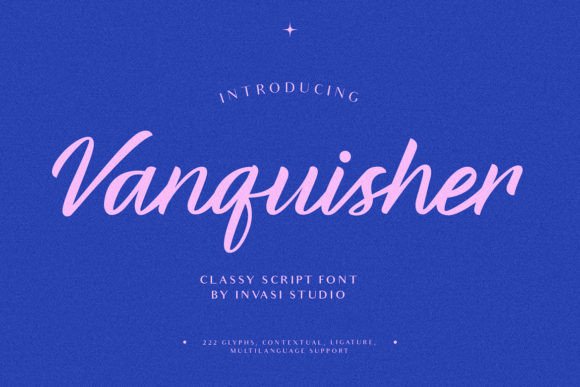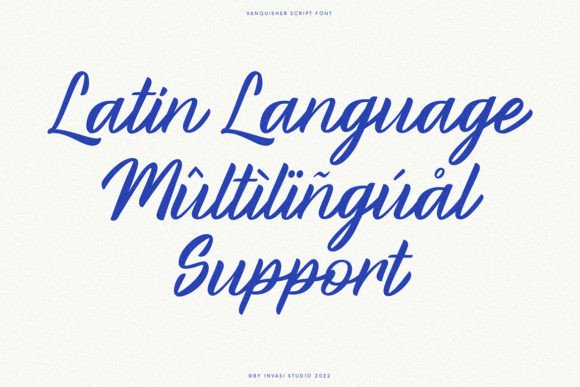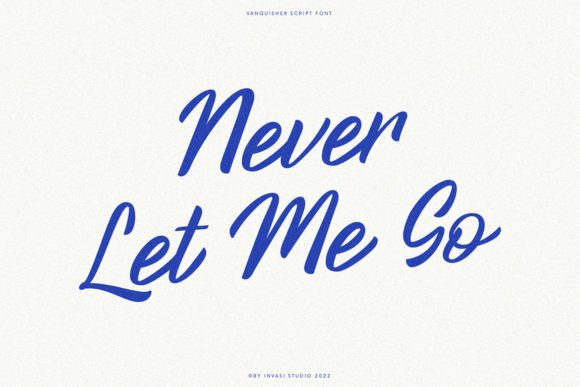
About Vanquisher Font
Vanquisher is a beautiful, elegant classic calligraphy script. Using swashes in uppercase and contextual alternatives, Vanquisher combines a bold and elegant stroke line. This font is perfect for your design needs such as branding, logo design, wedding invitations, decorations, and more.